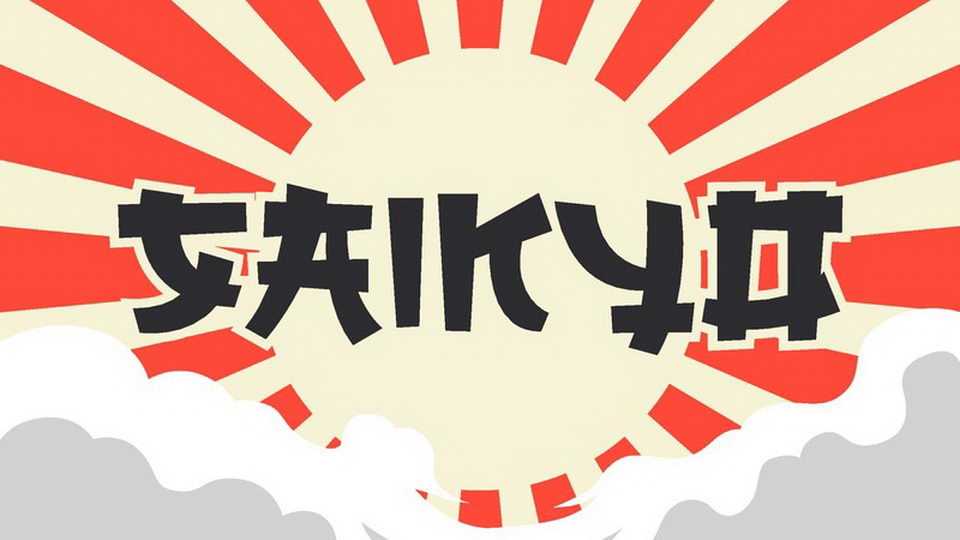
Download Saikyo font, a faux japanese typeface. Saikyo took katakana shape, and take it to the modern fast world. With strong stroke, emphasize the fast and full action world we’re facing.